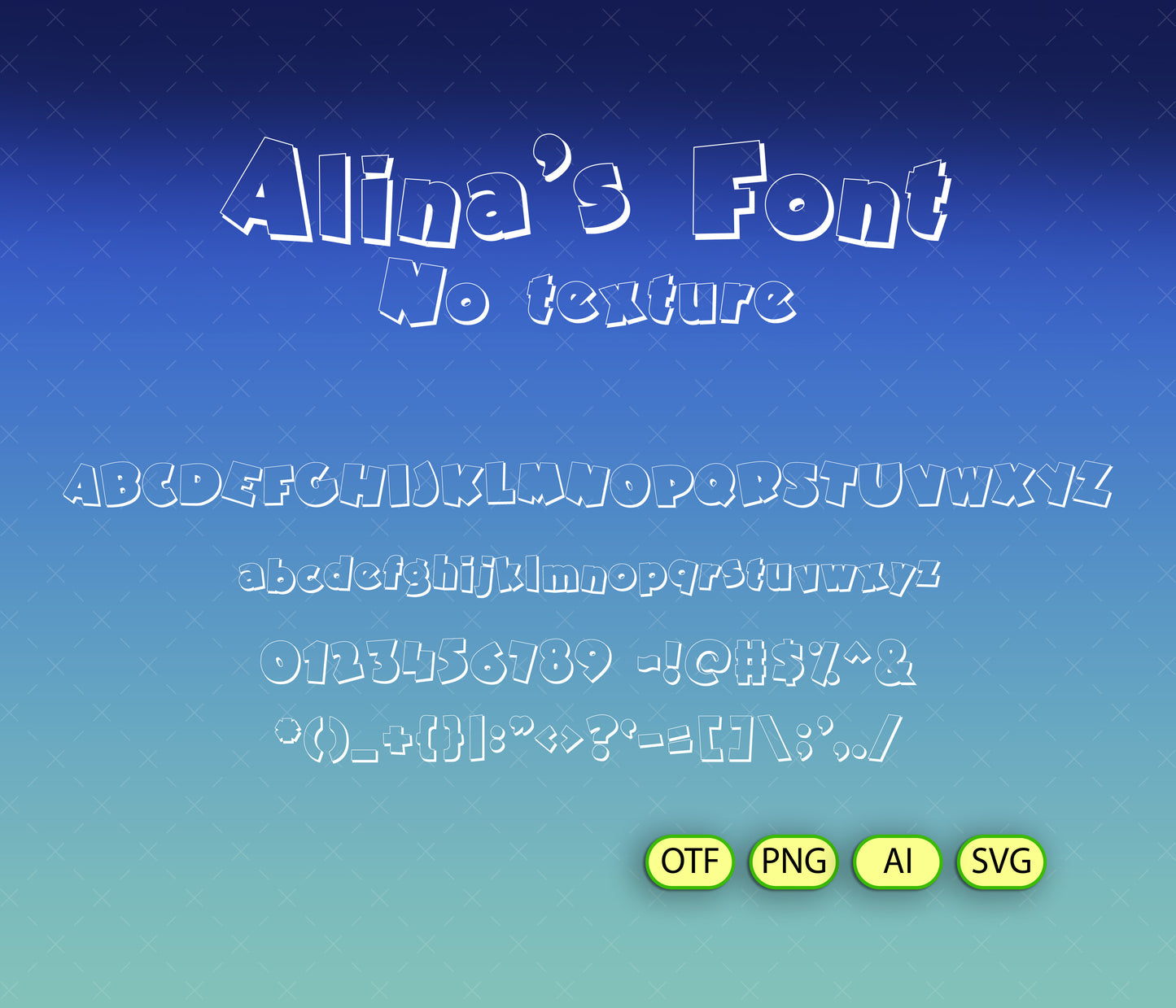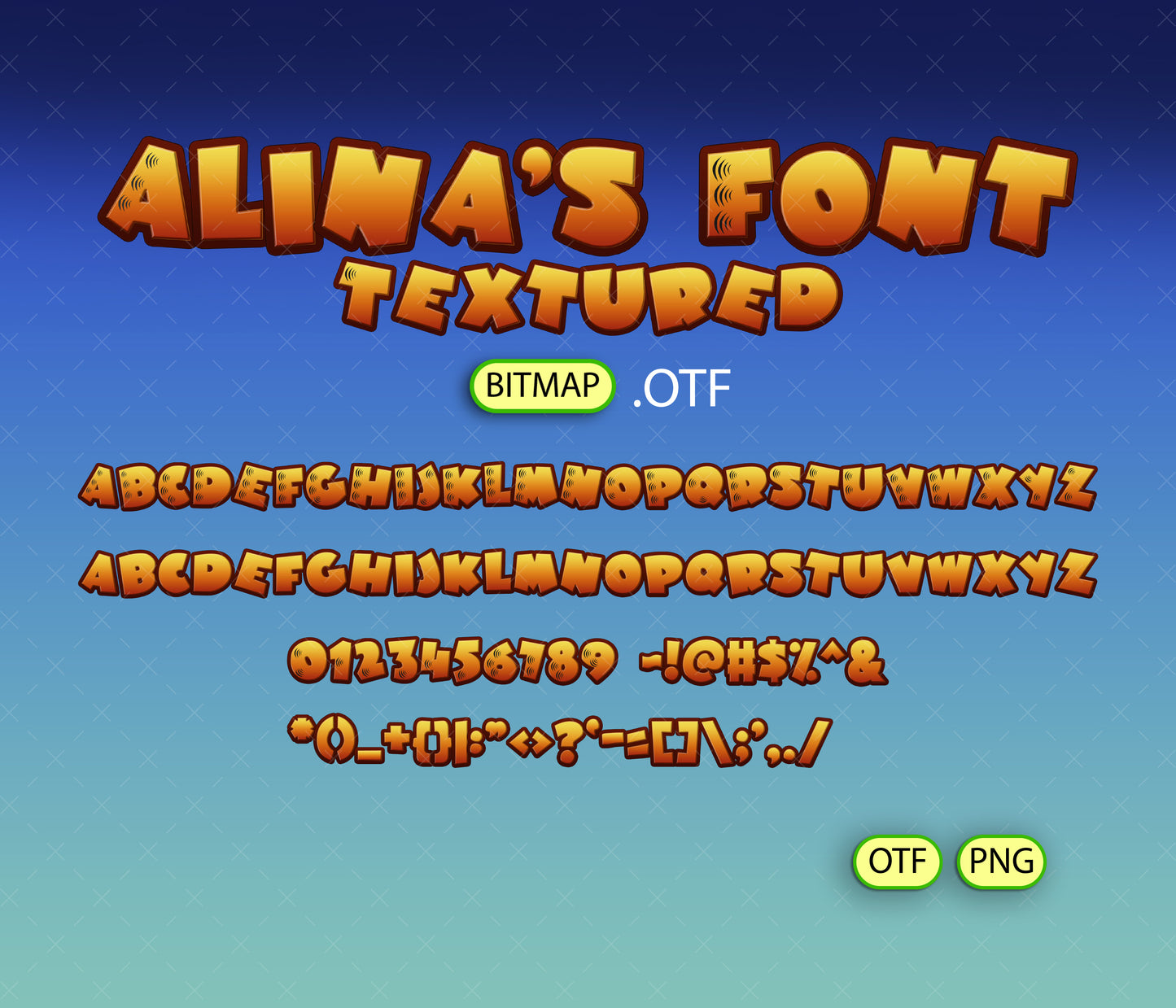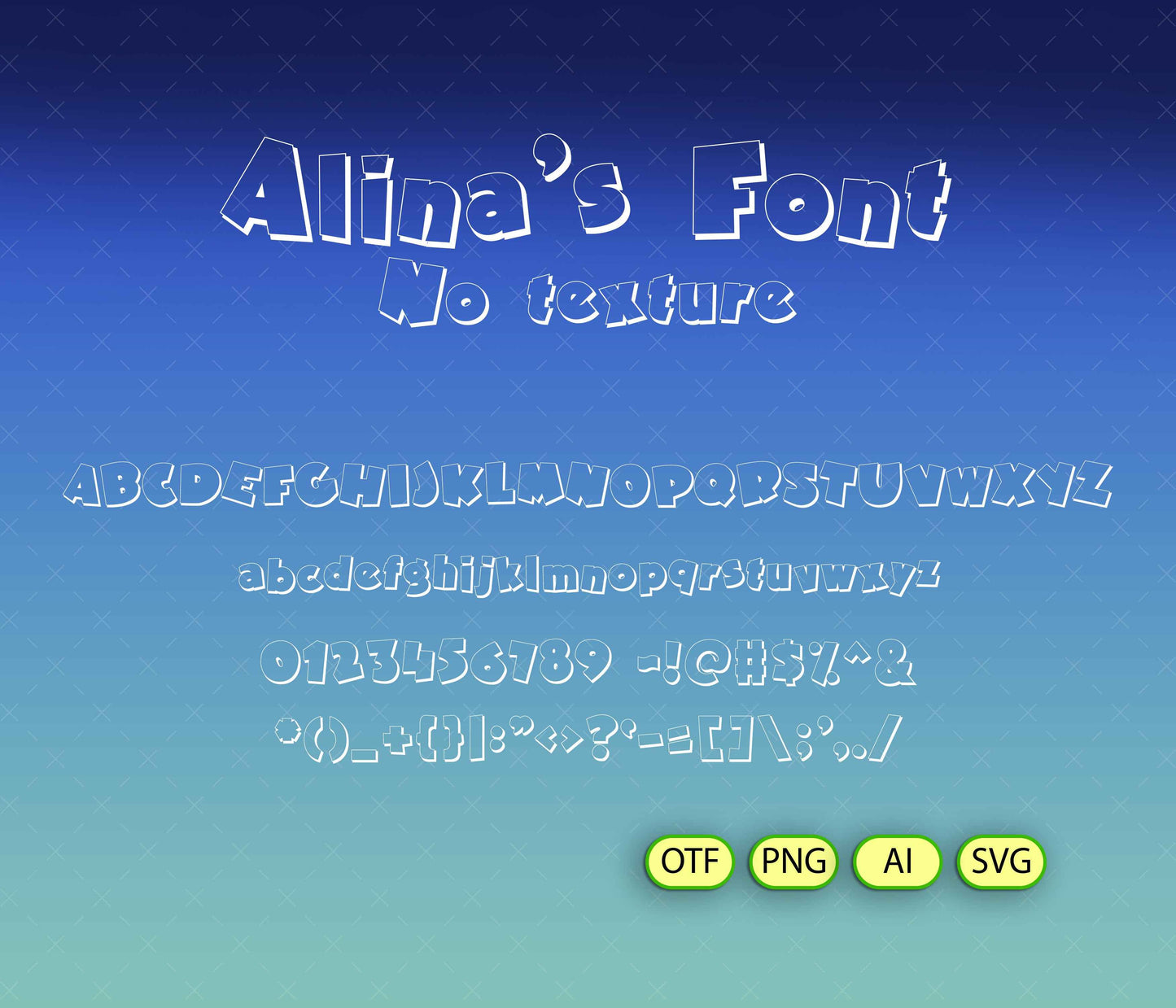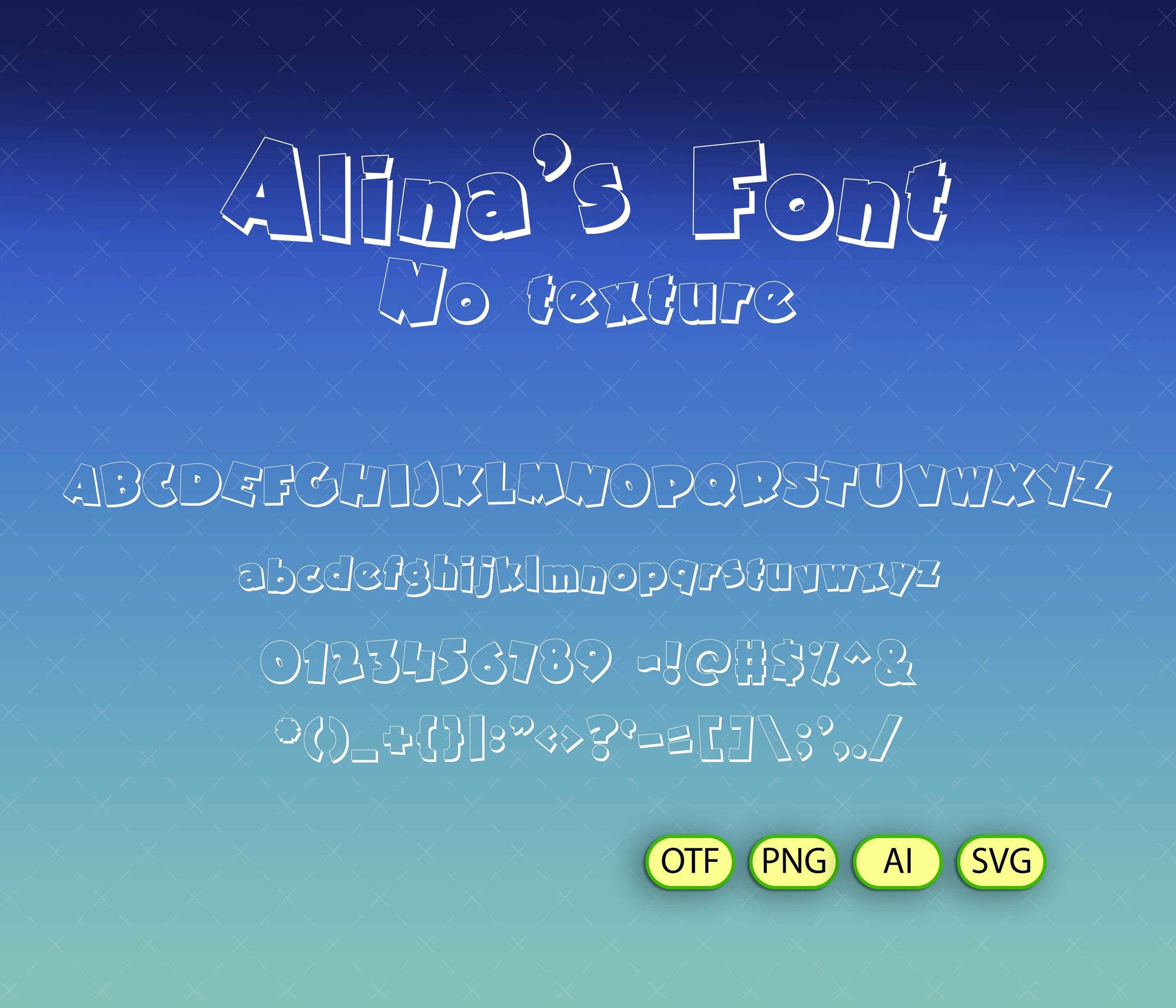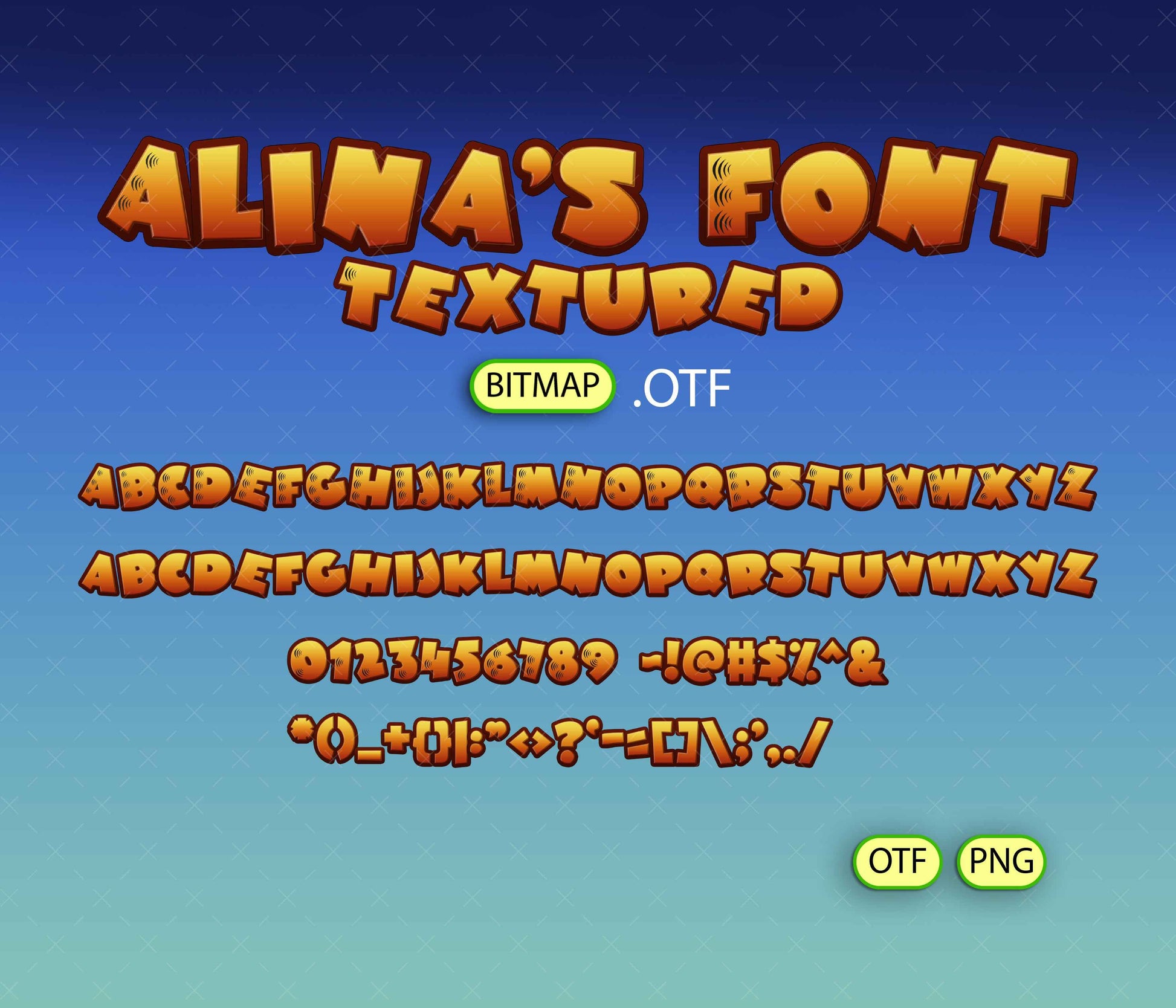
Pasta-Obsessed Feline Comic Font Textured
Step into the whimsical world of a beloved orange tabby cat, known for his love of pasta and disdain for Mondays. Our font captures the essence of this iconic comic strip, characterized by its playful, bold aesthetic and hints of feline mischief. Each character in this font reflects the quirky, sarcastic nature of the lazy cat and his colorful cast of friends, making it perfect for projects that aim to evoke the nostalgia and timeless appeal of this syndicated comic series.
What font is the Pasta-Obsessed Feline font?
Envision a typeface that perfectly encapsulates the comic's distinctive look and humorous style. Our font is designed to mirror the strip's unique appearance, with a focus on rounded, bouncy letterforms that are reminiscent of the cat's plump figure and easygoing attitude. It includes an extensive character set, featuring alphabets, numbers, and special symbols, offering a comprehensive solution for various design projects, from themed party invitations to retro merchandise.
What You Can Do With Pasta-Obsessed Feline Textured Font
This font is versatile and ideal for a range of creative applications:
1. Themed Event Invitations: Create unique and playful invitations for comic-themed parties or retro cartoon events.
2. Children's Merchandise Design: Perfect for designing apparel, toys, and accessories that capture the charm of the lazy orange cat.
3. Digital Content and Social Media: Use the font to add a touch of feline fun to websites, blogs, and social media posts.
4. Educational Materials: Incorporate the font into teaching resources for lessons on comics or humor in literature.
5. Greeting Cards and Stationery: Design personalized stationery or greeting cards with a lazy cat theme.
6. Promotional Materials: Use in advertising campaigns for family-friendly products or events.
7. Interior Decor: Create wall art, decals, or signage for children's rooms, play areas, or themed restaurants.
8. Event Signage: Develop eye-catching signs and banners for comic-themed events or conventions.
9. Book and Magazine Design: Use in publications focusing on comics, family entertainment, or pop culture.
10. Creative Art Projects: Ideal for crafting, scrapbooking, and artistic projects inspired by the pasta-loving cat.
• Textured and Non-Textured Variants: Each font is available in both a playful, comic-inspired style and a clean, non-textured version for diverse design needs.
• Comprehensive Character Set: Offers a wide range of characters for complete design versatility.